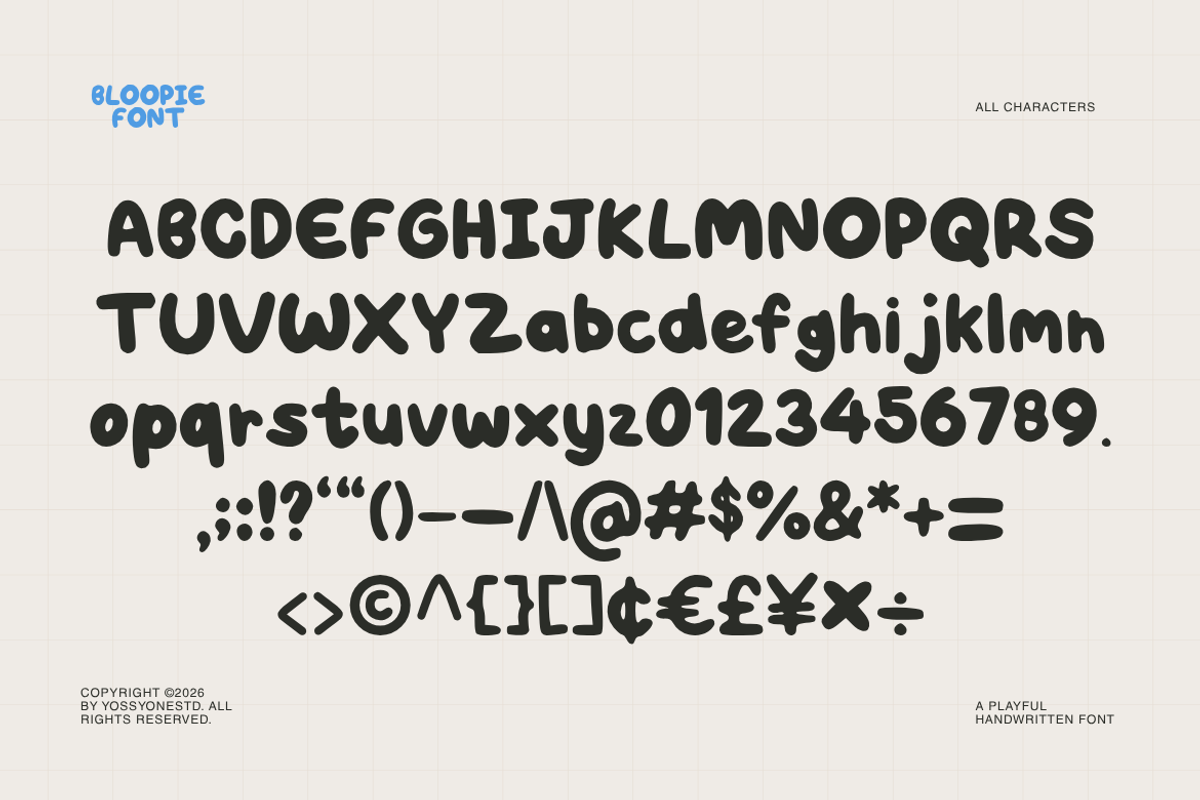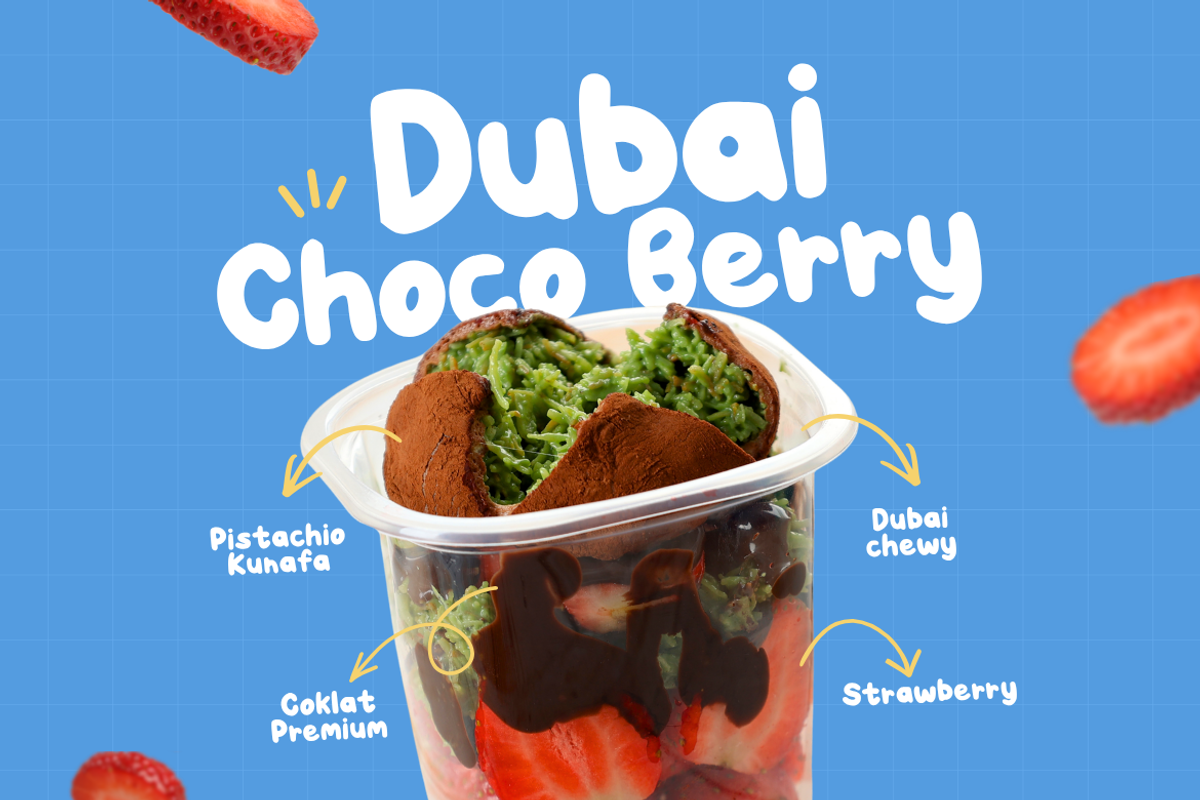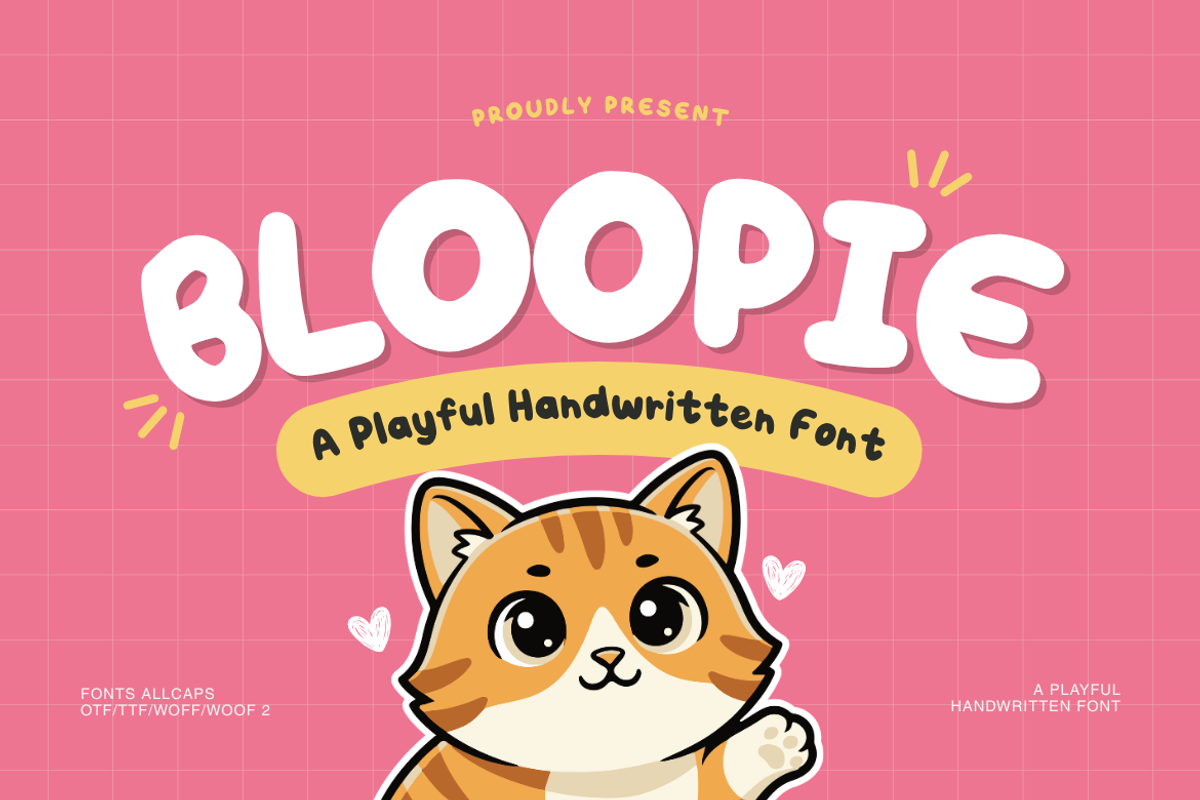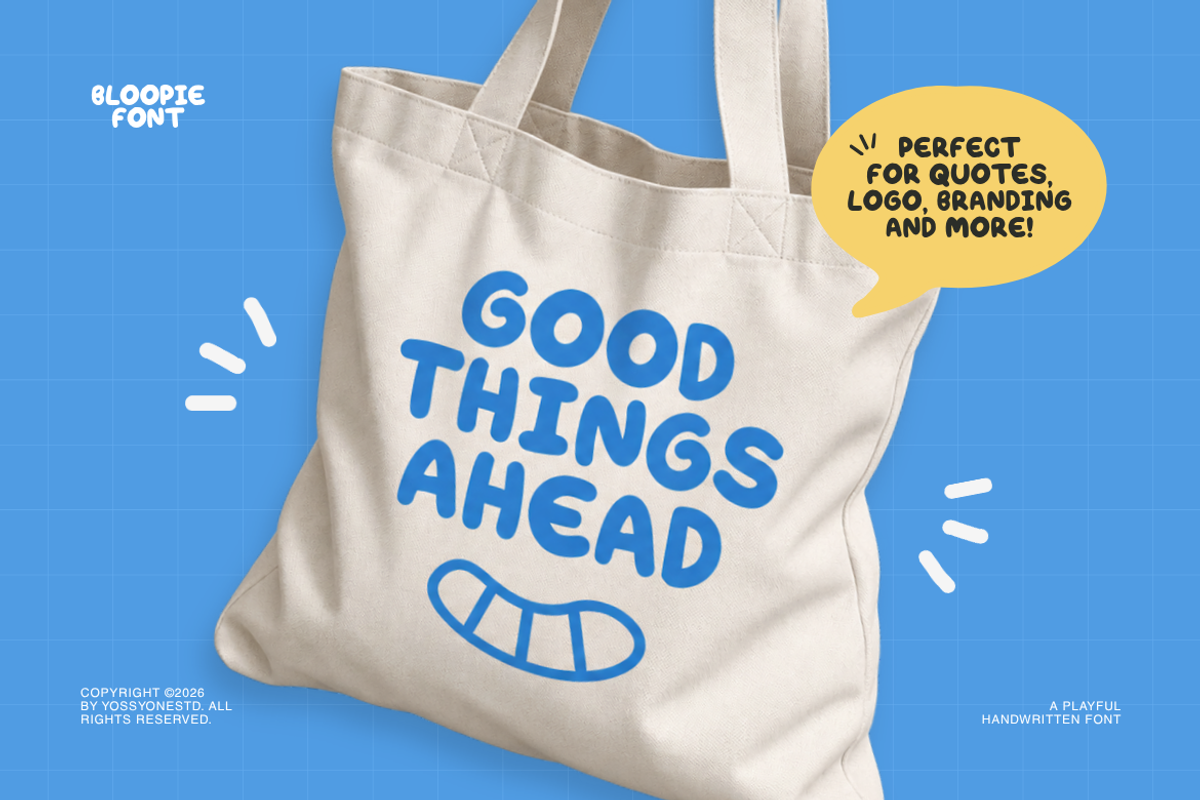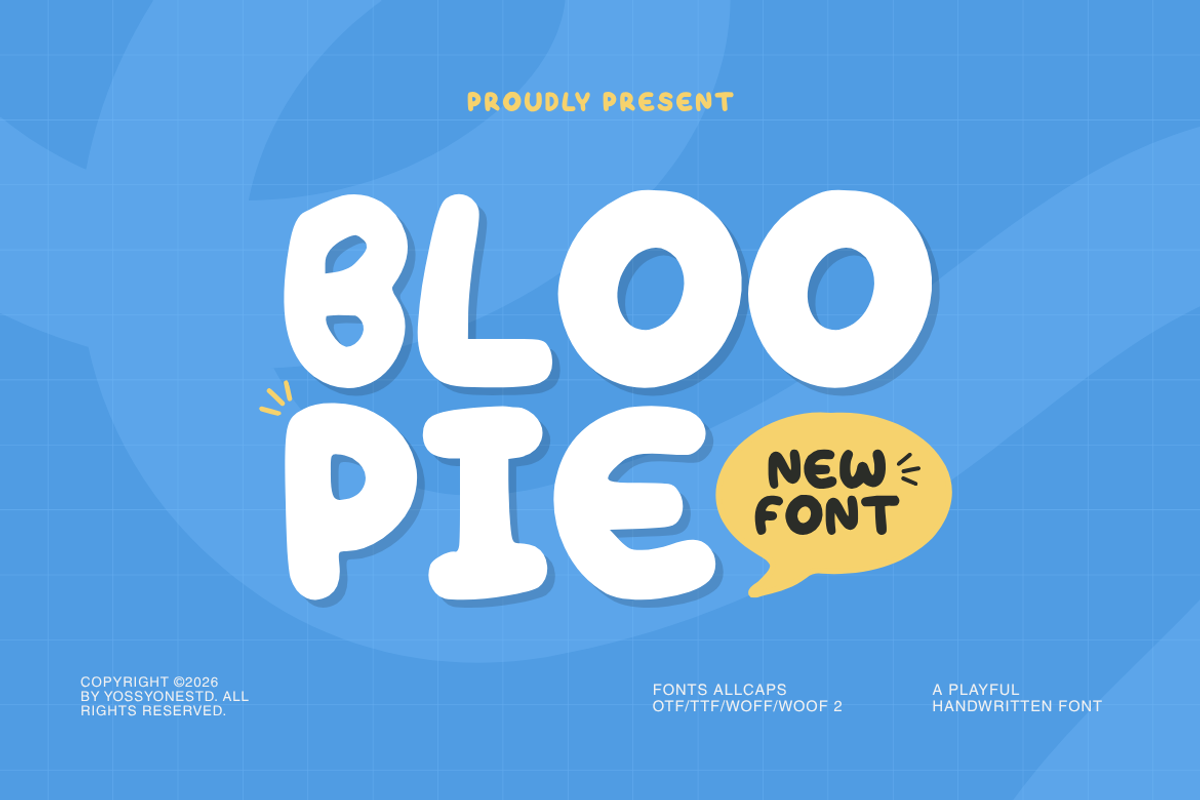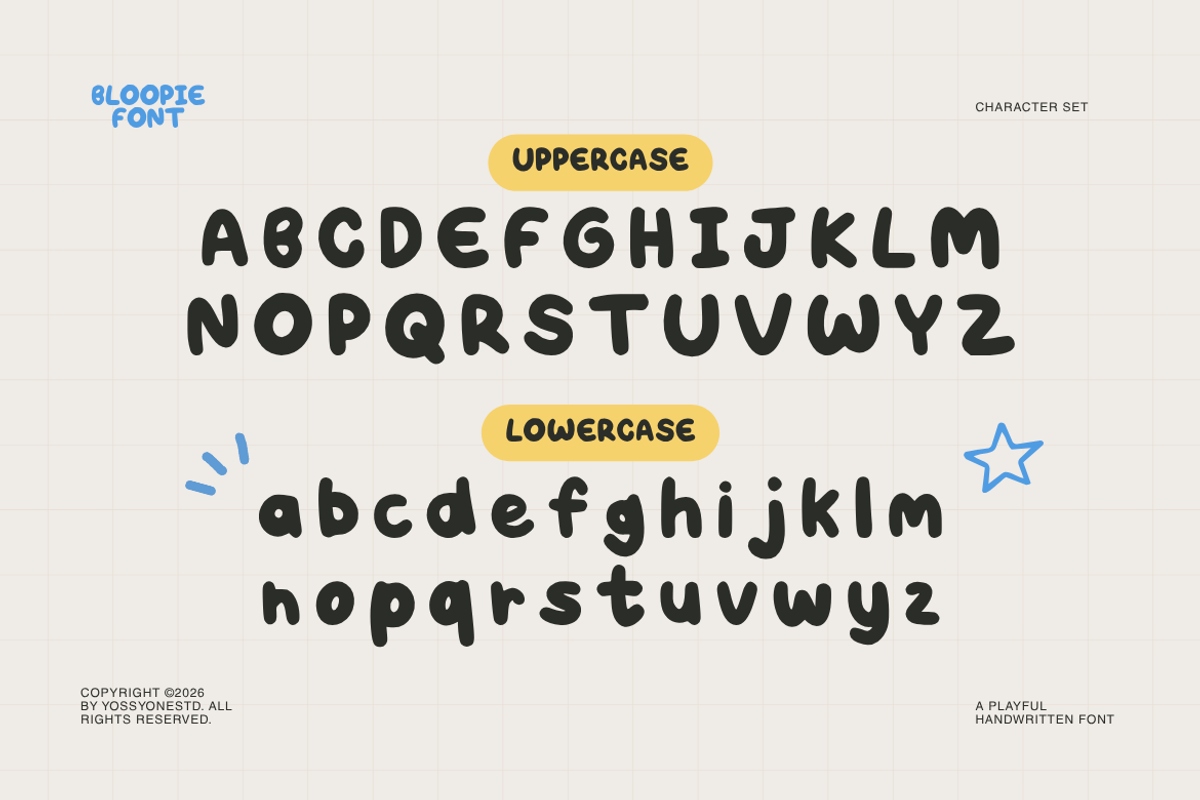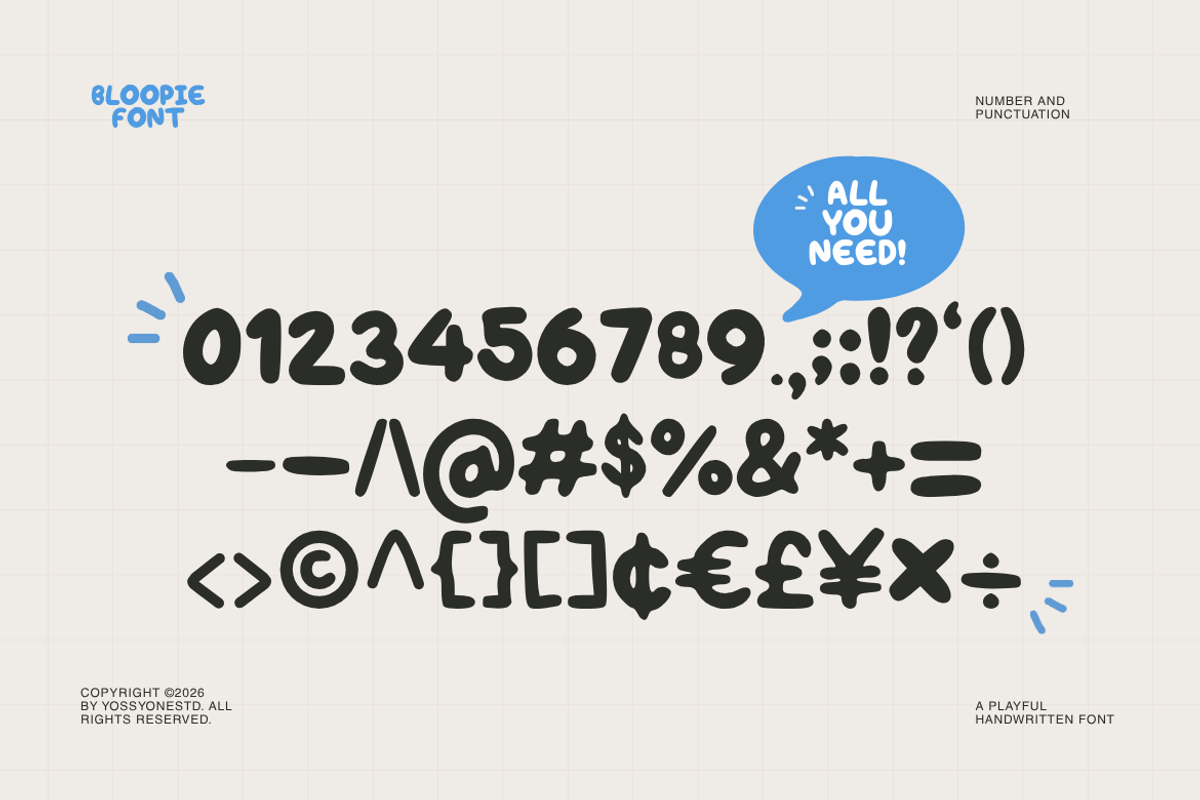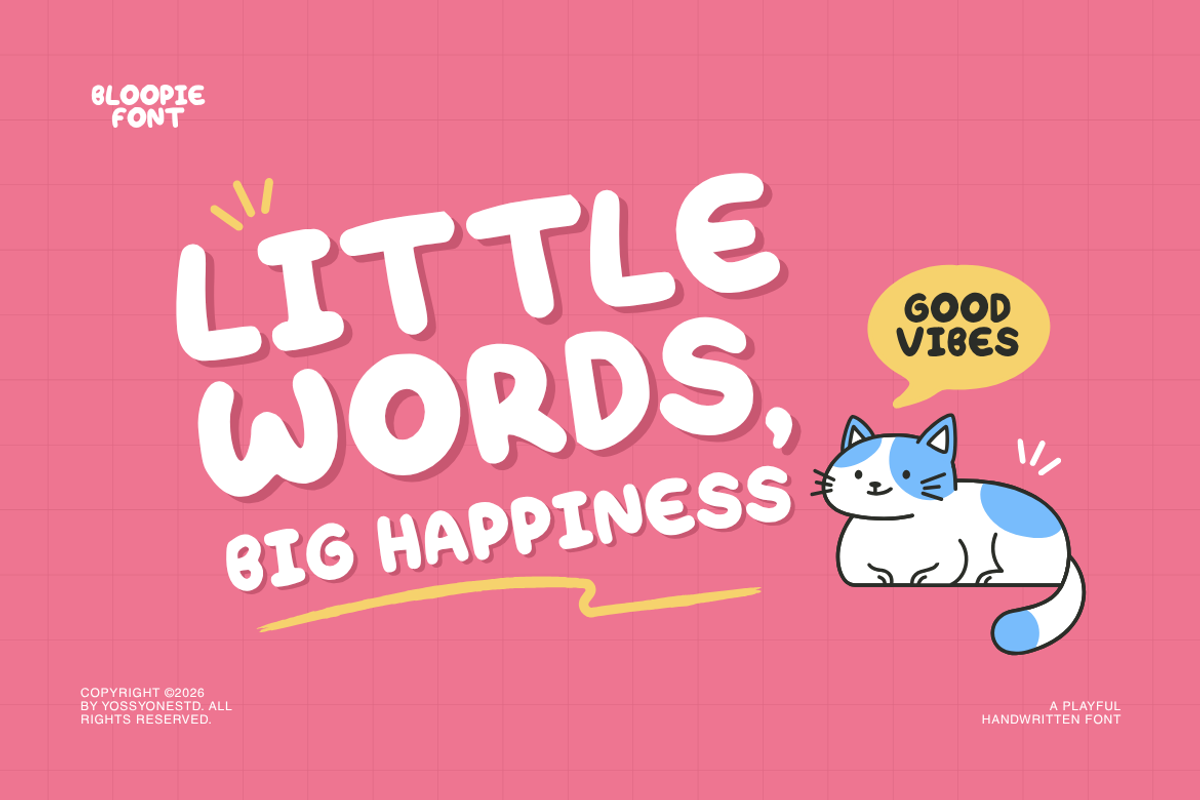
Bloopie - A Playful Handwritten Font
Meet Bloopie, a cheerful handwritten display font with a bold and bubbly character.
Designed with soft curves, playful proportions, and an expressive hand-drawn feel, Bloopie brings personality to your typography without losing its readability. Its friendly appearance makes it a great choice for designs that need a fun, casual, and approachable touch.
From eye-catching headlines and brand identities to packaging, posters, apparel, stickers, social media content, and creative merchandise, Bloopie is made to turn simple words into memorable visuals.
Bloopie brings bold, bubbly charm to every word, making your designs feel fun, friendly, and alive.!